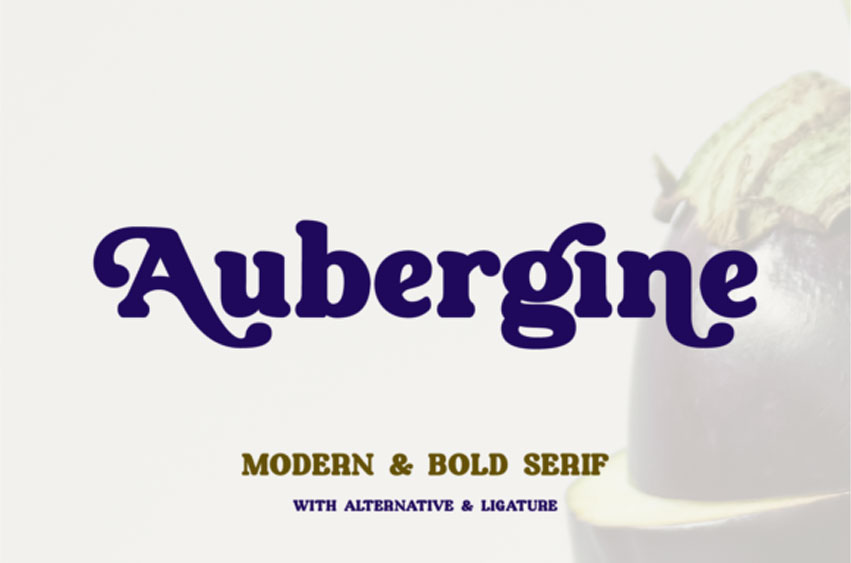
Aubergine Font is a cool, vintage styled and bold serif font. It is PUA encoded which means you can access all of the glyphs and swashes with ease!
Add this chunky lettered font to your designs and notice how it makes them come alive!